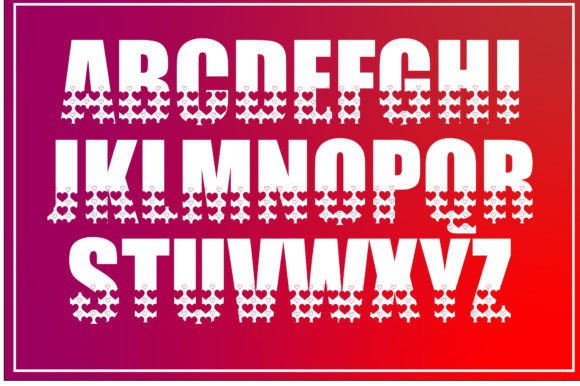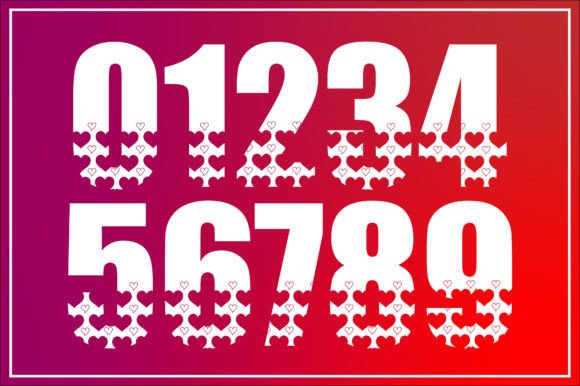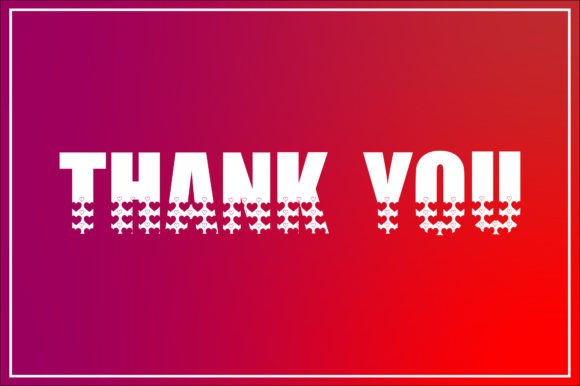
Introduction to Nora Love Font
Have you ever been working on a creative project, and the perfect font just evades you? You know, that elusive combination of elegance and whimsy that makes your design truly shine. Well, search no more, because we’ve got just the thing for you: the stunning Nora Love Font.
This beautiful decorative font features lovely hearts as ornaments, adding a touch of romance and playfulness to any design. Whether you’re creating letterheads, titles, or stationery, the Nora Love Font is sure to be a valuable asset to your design resource. With its bold and elegant style, it’s perfect for adding a personal touch to your projects.
Key Features of Nora Love Font
- Includes a range of characters and symbols, making it a versatile design resource for a variety of creative projects.
- Designed with high resolution, ensuring crisp and clear text even at larger sizes, perfect for signage, logos, and other large-scale designs.
Honest Review: Nora Love Font
I recently came across the Nora Love Font, and I must say it’s a lovely addition to any creative project. This font is a great design resource that can add a touch of elegance to your work.
Here are some of the font’s key features:
- High quality design suitable for digital and print use
- Transparent background for easy layering and editing
- Great for use in creative projects, such as logos, graphics, and more
However, I did notice a few limitations: ⚠️ The font may not be suitable for use in very small text sizes, and the characters may not be as detailed as some other fonts.
Overall, I’m impressed with the Nora Love Font. It’s a great addition to any designer’s toolkit, and its high quality design makes it perfect for a variety of creative projects.
Nora Love Font
The Nora Love Font is a versatile and high-quality design resource perfect for any creative project. With its transparent background, this font is easy to use and customize to fit your needs.
To get the most out of the Nora Love Font, try the following tips:
- Experiment with different font sizes and styles to create unique and eye-catching designs.
- Combine the Nora Love Font with other design elements, such as images and graphics, to create visually appealing projects.
- Use the font’s transparent background to create a sense of depth and layering in your designs.
The Nora Love Font is perfect for a variety of creative projects, including:
- Graphic design projects, such as posters and flyers.
- Web design projects, such as website headers and footers.
- Print design projects, such as business cards and brochures.